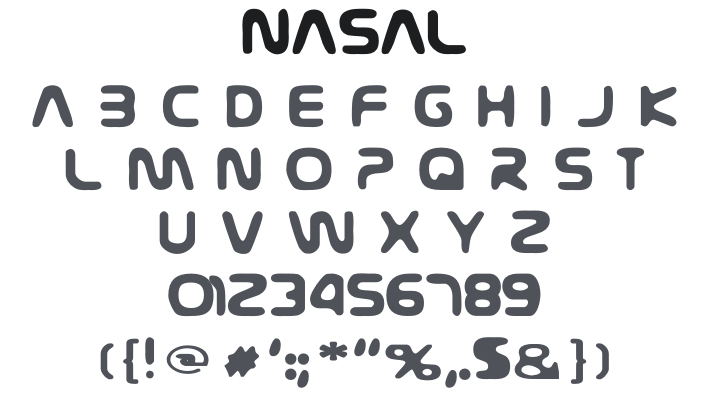
Nasal Font
About Nasal
Nasal is a bold, ultra-rounded display sans-serif with thick, chunky letterforms where every corner is softened into a smooth, pillowy curve — giving it a warm, friendly futurism that feels like NASA's "worm" logo melted in the sun. Its heavy, bubbly geometry balances space-age confidence with approachable playfulness. Perfect for sci-fi branding, tech product logos, game titles, and any headline needing friendly futuristic presence.